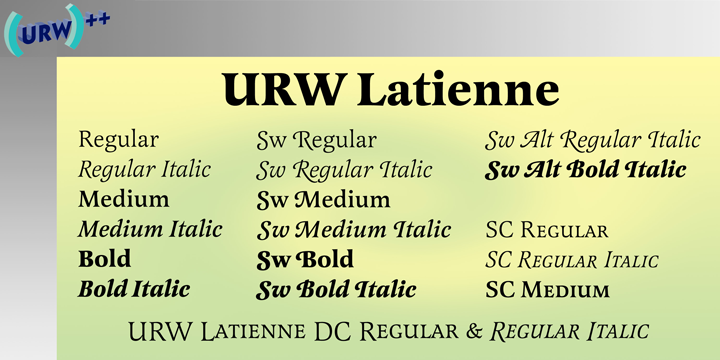
Latienne Font excels in various design applications including Latin-inspired branding, romantic restaurant logos, Mediterranean cultural materials, classical heritage designs, elegant wedding invitations, vintage wine labels, historical document reproductions, and sophisticated editorial layouts. This classical typeface adapts beautifully to both cultural digital platforms and traditional print materials, making it perfect for designers seeking Latin elegance and classical sophistication in their visual communications.
Latienne Font generates excitement among creative professionals due to its classical character and Latin-inspired styling that instantly conveys cultural heritage and timeless elegance. The font's refined letterforms and classical proportions create an immediate sense of historical authenticity and Mediterranean charm. Its cultured personality makes it particularly appealing for brands wanting to communicate classical tradition, cultural sophistication, and Latin heritage in their visual identity.
The Latienne Font family includes multiple weights and styles such as Regular, Bold, Light, Italic, and Medium variations. Each family member maintains classical design principles while offering distinct cultural characteristics. The Light weight provides subtle Latin elegance for sophisticated applications, while the Bold version delivers authoritative impact for cultural headlines and heritage brand statements.
Cultural designers frequently choose Latienne Font Free Download for projects requiring both Latin authenticity and classical distinction. This typeface demonstrates remarkable effectiveness across cultural industries including museums, heritage organizations, Mediterranean restaurants, and classical institutions. Its Latin character allows organizations to communicate cultural heritage while maintaining excellent readability and classical visual appeal that honors the timeless elegance of Latin typography and Mediterranean cultural traditions.